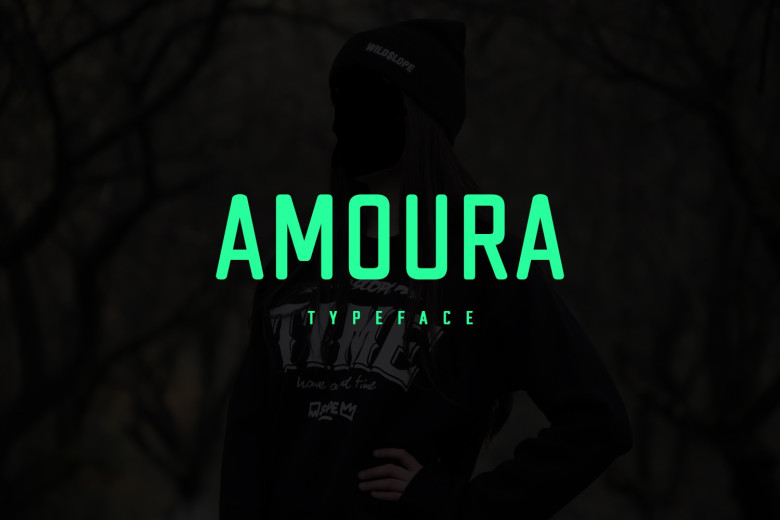
Amoura Font
Amoura can be described as an iconic sans serif font, making it perfect for creating stunning logos, promotional material and marketing graphics that capture audiences’ interest – as well as more!
Amoura Sans Serif Font